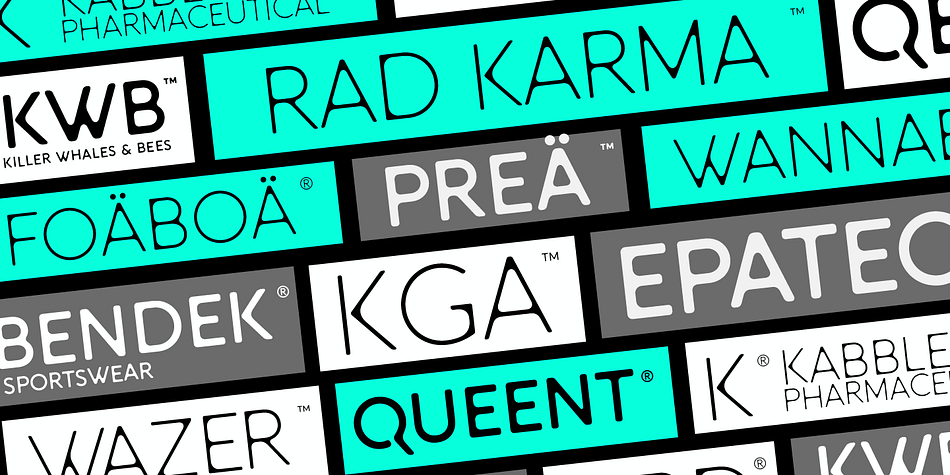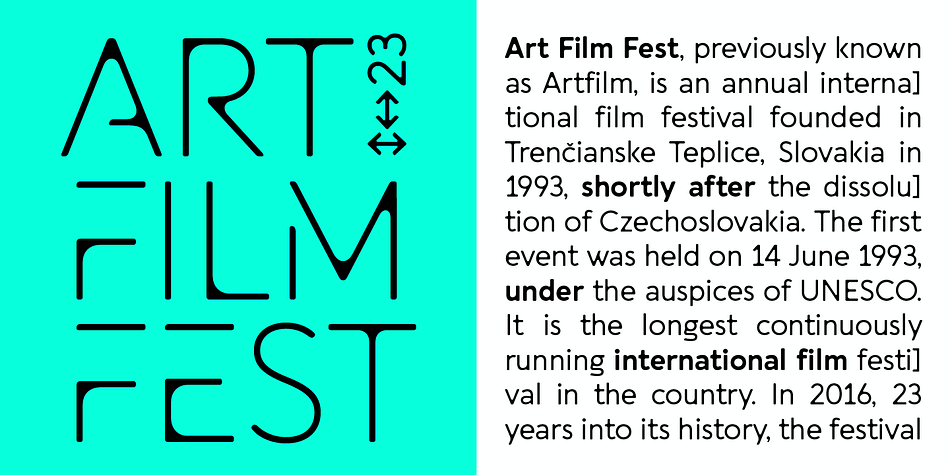
Aquawax FX
Designed by Francesco Canovaro and Mario De Libero, Aquawax FX is a display sans and sans serif font family. This typeface has thirty-eight styles and was published by Zetafonts.
Aquawax FX was developed by Francesco Canovaro as a new variant of the Aquawax family, one of the most beloved Zetafonts classics. This new typefamily is characterized by a contemporary and elegant design, that revisits the original design of 2008 with new geometric inventions, twisted with the current fluid zeitgeist.
Aquawax FX builds on the original Aquawax family by adding counter-inktraps to the letterforms and emphasizing the inner contrast of curves and corners creating a smoother, flowing and dynamic look. While inktraps are a design feature that prevents ink from bleeding or filling small spaces in letterforms to achieve a cleaner, more readable look, anti-inktraps characterize the design with a distinctive watery appearance, suitable for logo design and titles.
This watery effect is possible through a slight rounding of the inner and outer corners, keeping the original cuts at the letter terminals. A Space variant pushes FX experimentation furthermore, providing an alternate stencil-like style that takes legibility to the extreme, ready for logos and sci-fi headings.
This does not limit the usability of Aquawax FX to mere display intent. The Aquawax FX font family includes two versions (Roman and Space), each with nine weights, ranging from Thin to Heavy, and matching italics. With a total of 36 variants plus one variable version, Aquawax FX is a versatile type family that can be used for a variety of design projects, from branding and packaging to editorial design and advertising. Aquawax FX offers a fresh re-interpretation of the original Aquawax letterforms and proportions, with a dynamic and flowing look that is sure to make your projects stand out.